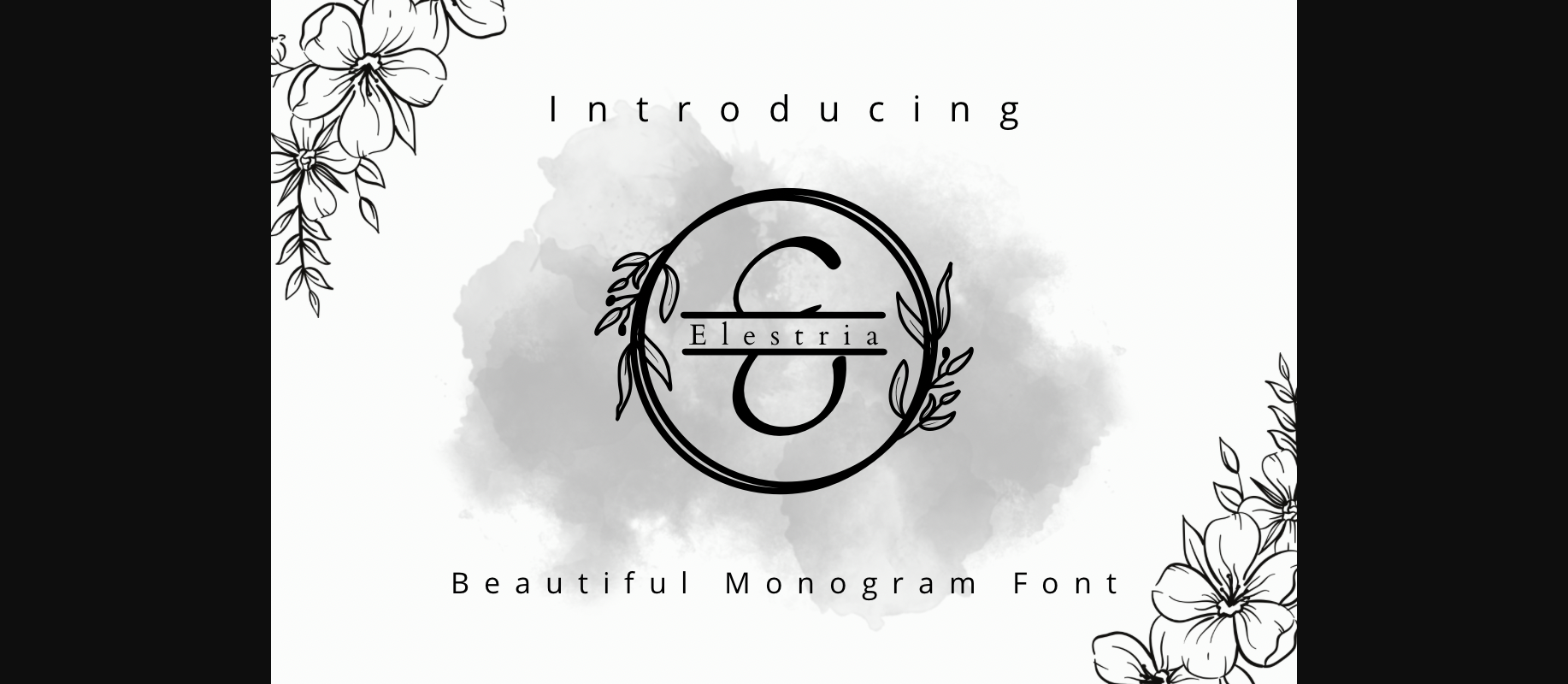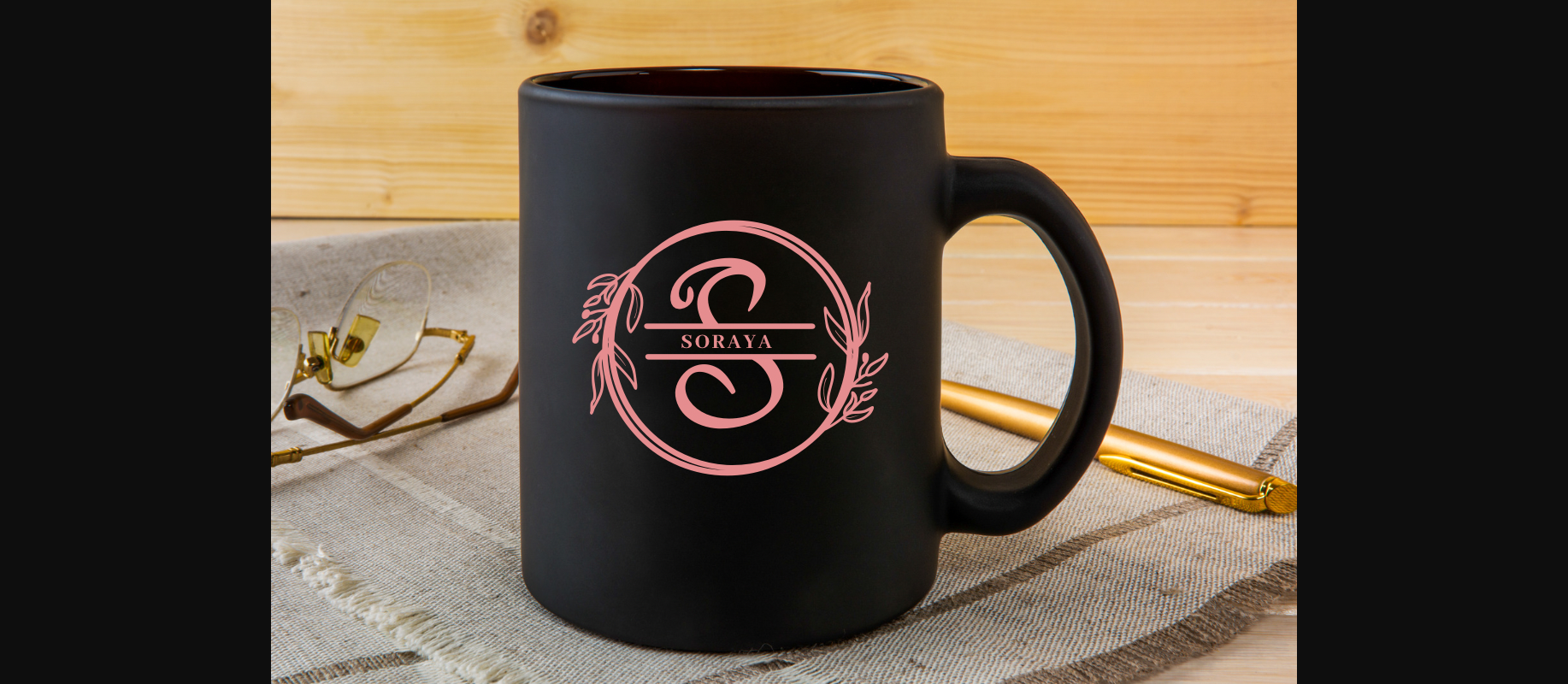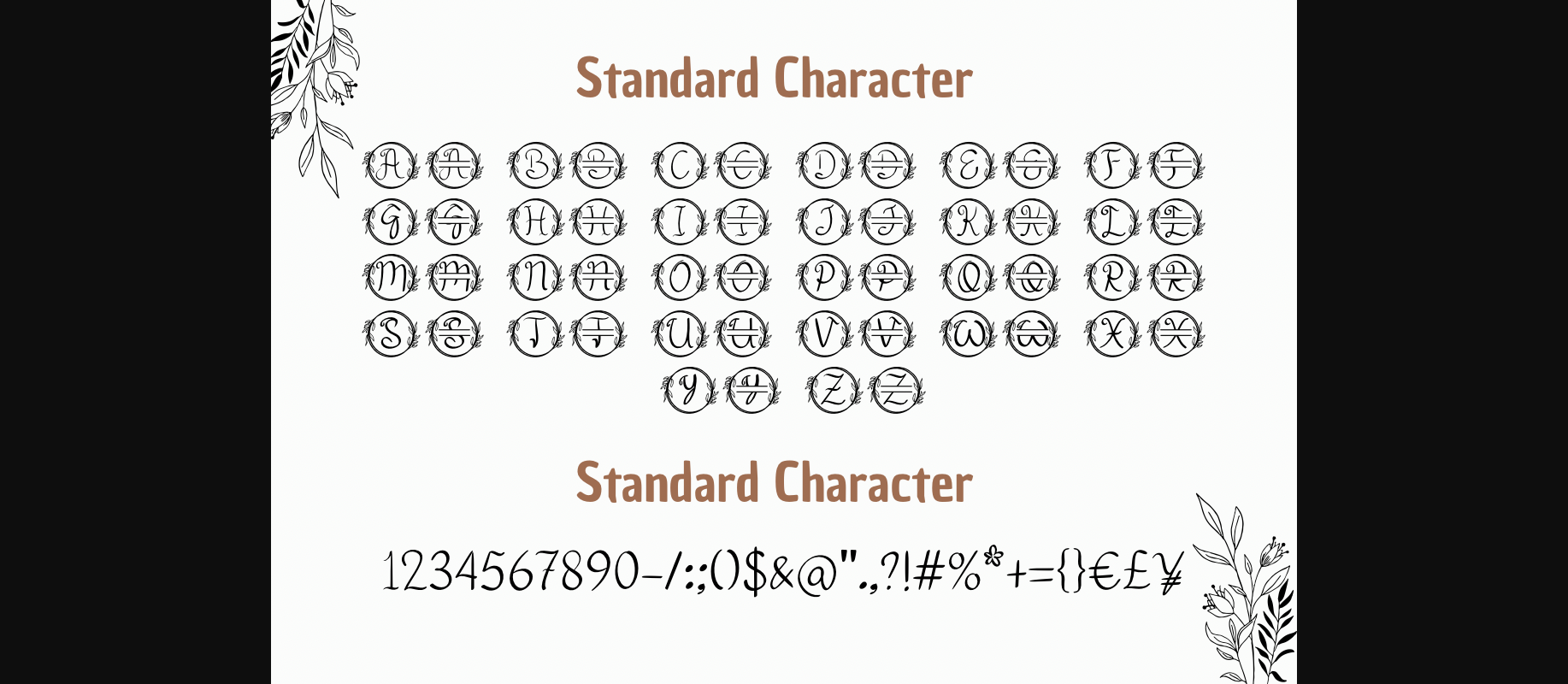
About Elestria Font
Elestria, a captivating typography that sparks the imagination with elegant floral frames adorning each letter. With its enchanting design, this font brings forth a harmonious blend of sophistication and creativity, enriching your design work with unparalleled aesthetic elements.